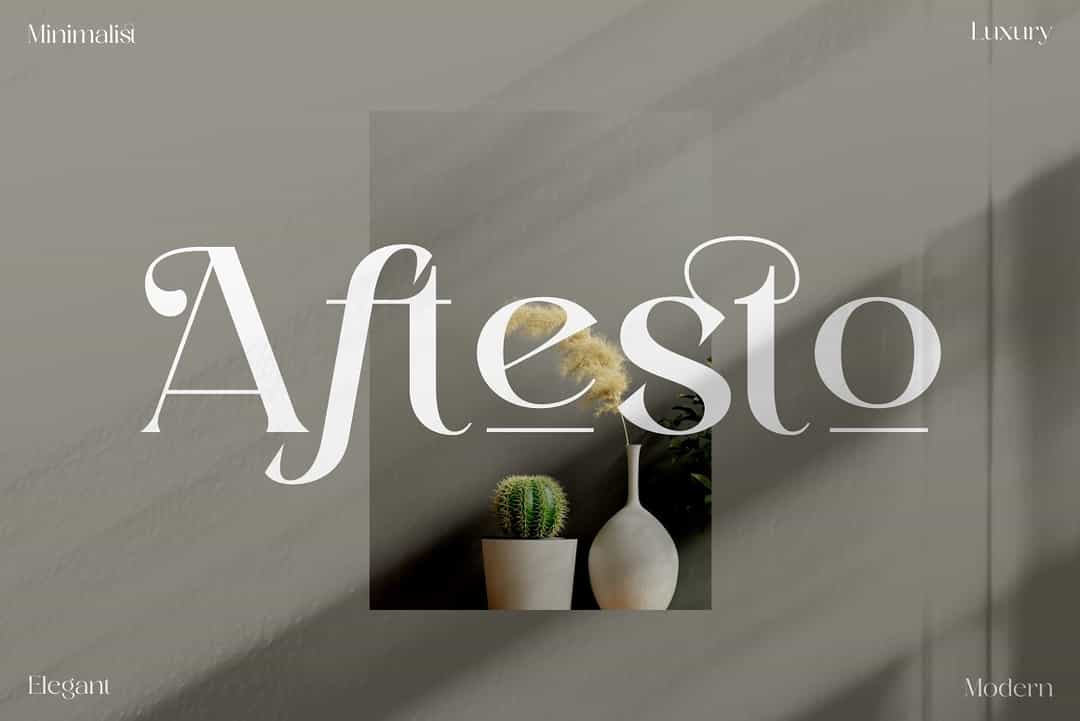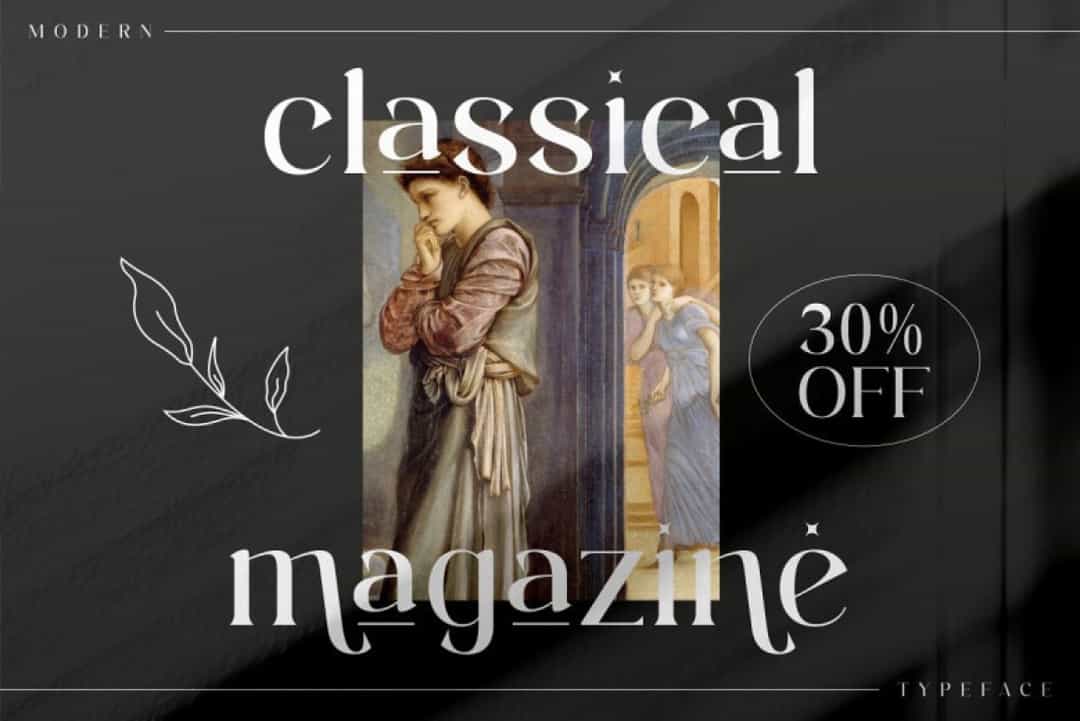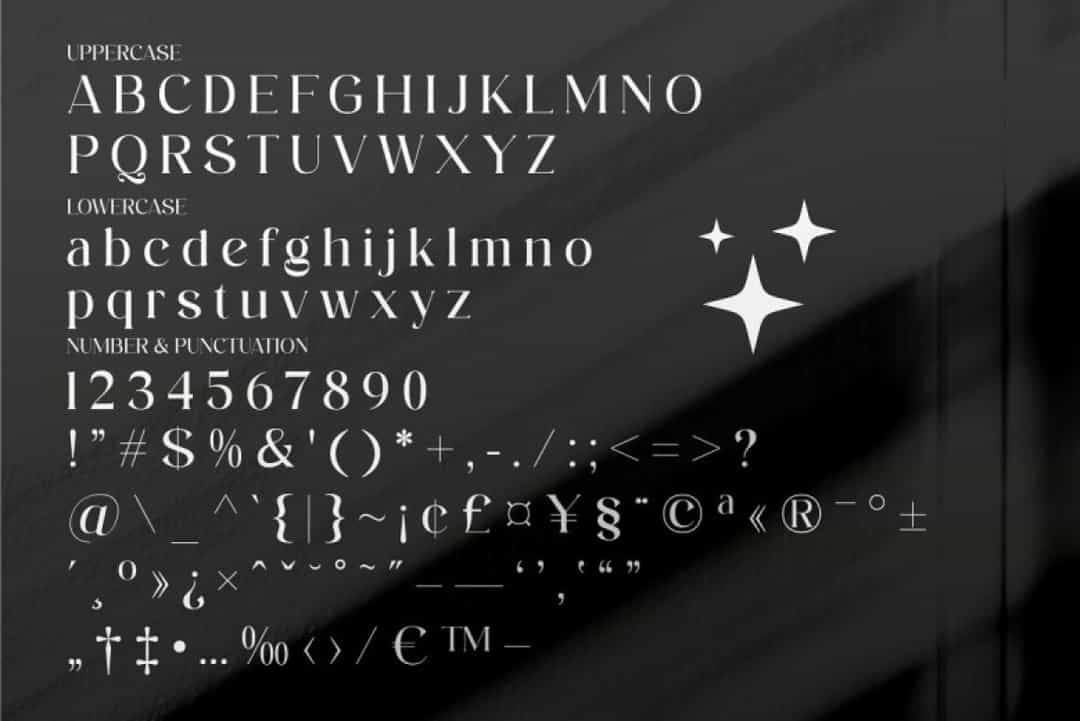
Storytype’s Aftesto is an elegant modern serif font featuring its own distinctive style. Perfect for creating classy logos, book or film style book covers, fashion label clothing labels, magazines letters quotes or any other purpose, Aftesto can add contemporary chic to any project!